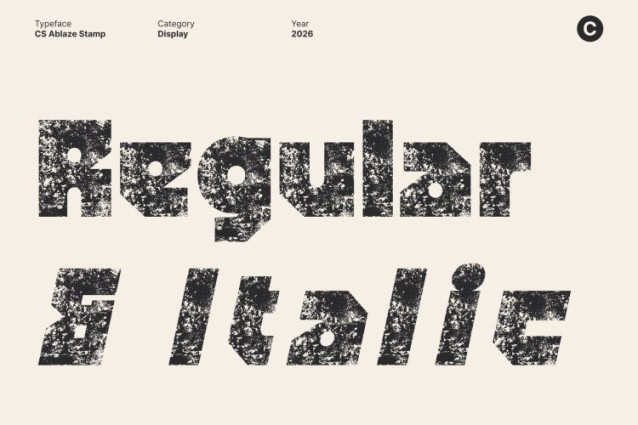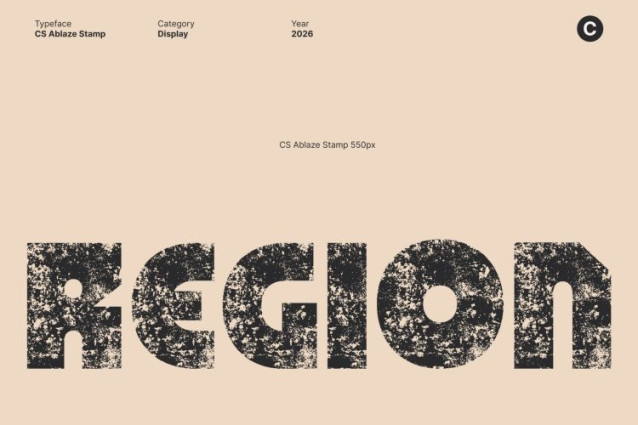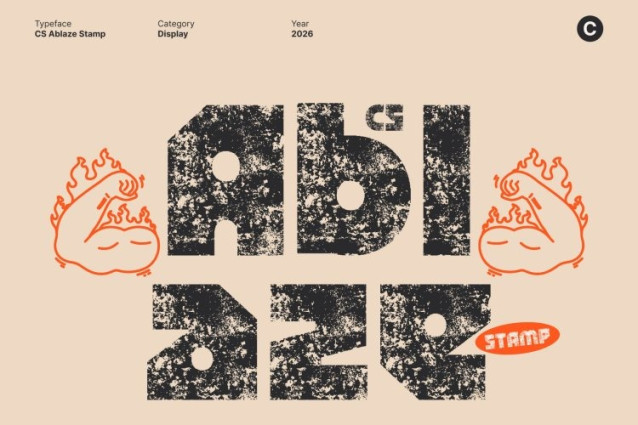
CS Ablaze Stamp Font
CS Ablaze Stamp Font This is a bold display sans serif font built from blocky, brutalist forms and a strong geometric foundation. Its heavy structure and architectural letterforms create an uncompromising visual presence that feels solid, aggressive, and commanding. The font immediately communicates strength, confidence, and raw industrial energy.
Industrial Character with Stamped Texture
Rooted in industrial and experimental typography, this font embraces rigidity, sharp edges, and bold proportions. The added stamp effect introduces rough texture and organic imperfections, giving the font a vintage, worn-in feel reminiscent of old industrial prints and mechanical markings. This texture enhances its rebellious and expressive attitude.
Designed for High-Impact Display Use
This font excels in large-scale applications where visual impact is essential. Its bold weight and geometric clarity ensure strong readability, while the textured finish adds depth and grit. Headlines, titles, and statements appear loud, fearless, and visually striking across posters, signage, and graphic layouts.
Perfect for Music, Posters, and Bold Branding
Ideal for music artwork, band merchandise, posters, branding, and experimental visual projects, this font delivers a powerful typographic voice. Its brutalist style combined with industrial stamped texture ensures designs feel intense, memorable, and unapologetically bold.